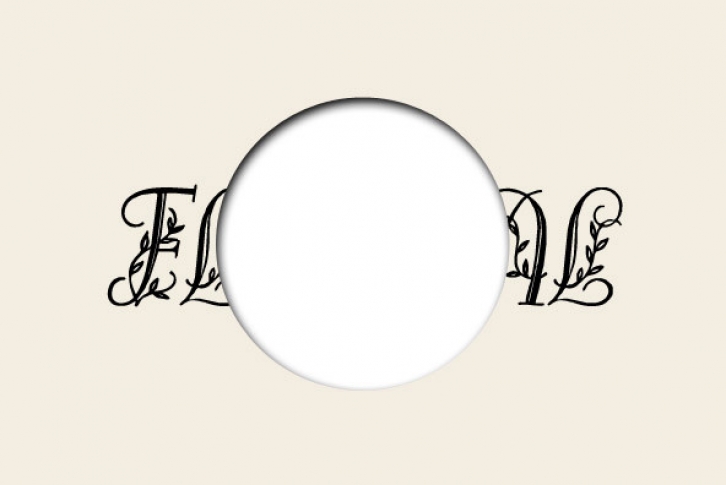
A classic serif design remastered by Intellecta Design. Designed around an antique theme, Bailarina works great in display purposes. Contains a limited amount of letter designs, works best when used for headers.